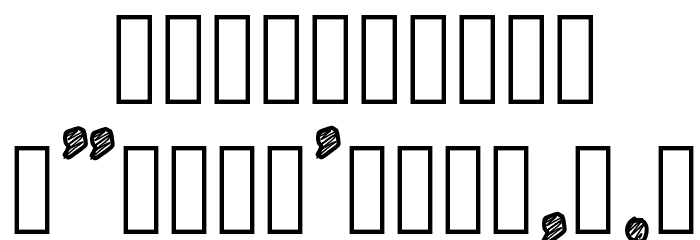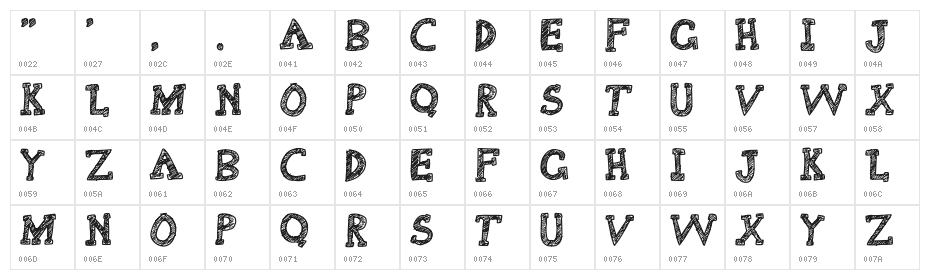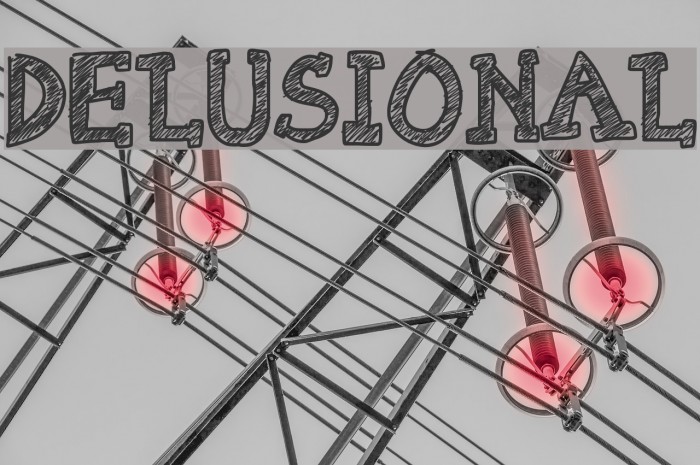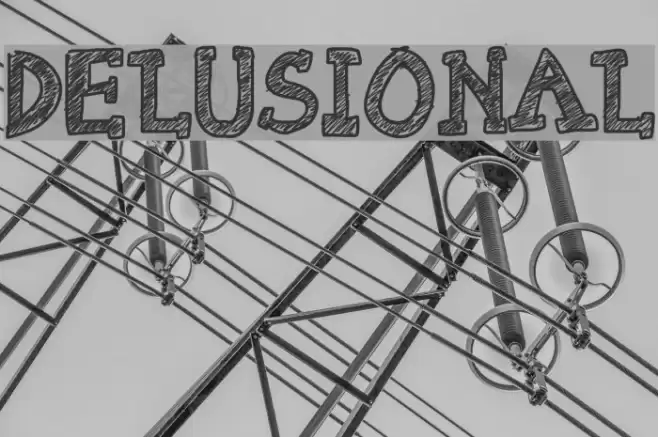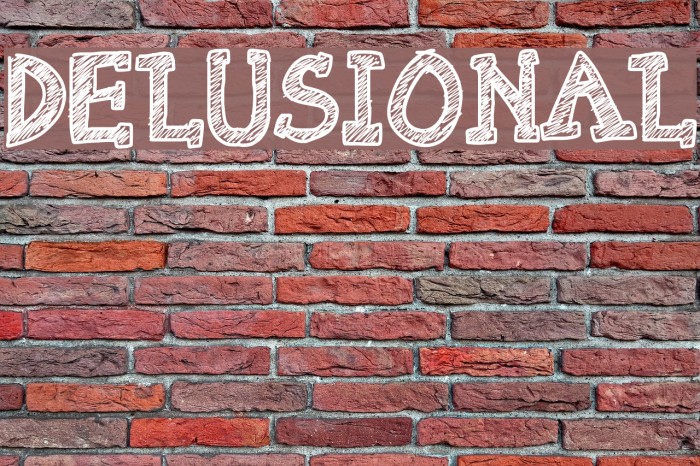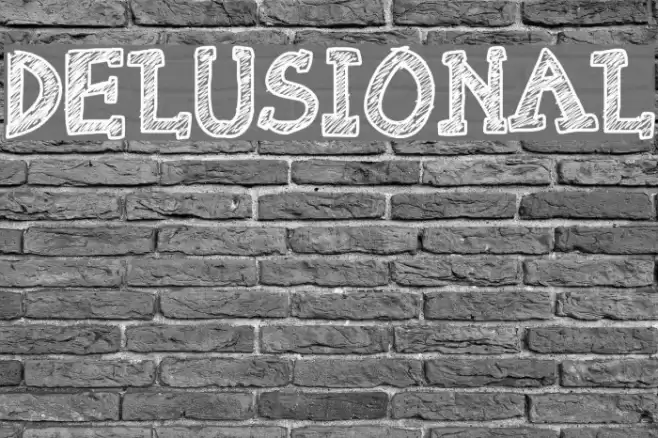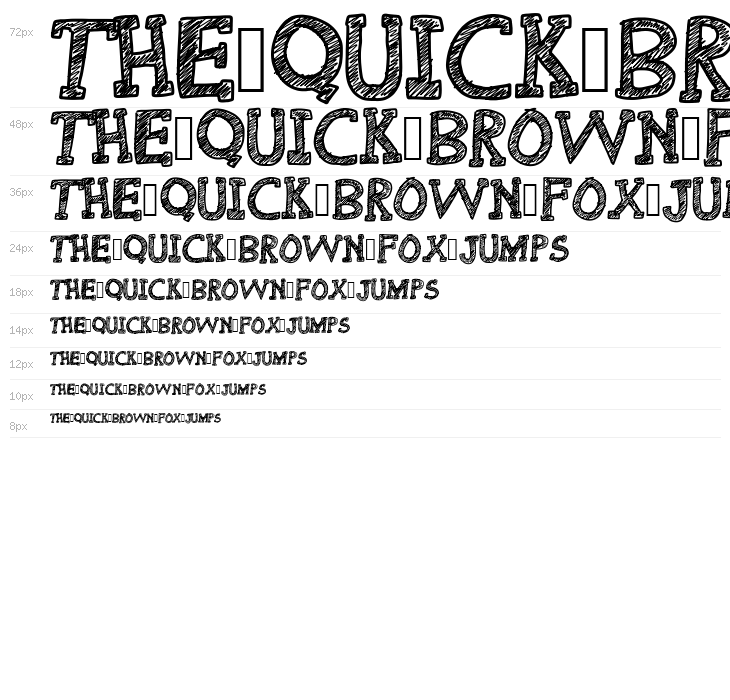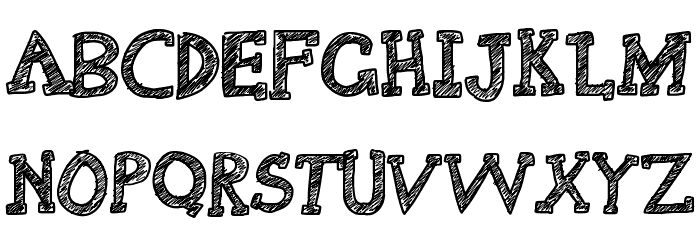
Delusional Font
Delusional Description
This font features a playful and artistic design, characterized by its hand-drawn, sketch-like appearance. Each letter is outlined with a bold stroke and filled with a textured pattern that mimics the look of a pencil sketch. The uppercase and lowercase letters maintain a consistent style, offering a whimsical and informal feel. The numbers and special characters are crafted with the same attention to detail, ensuring a cohesive look across all glyphs. This font is ideal for projects that require a creative and fun touch, such as children's books, comic strips, or playful branding materials. Its unique style makes it stand out, adding a personal and artistic flair to any text.
| Proposed Projects | Ideal for children's books, comic strips, playful branding, and creative posters. |